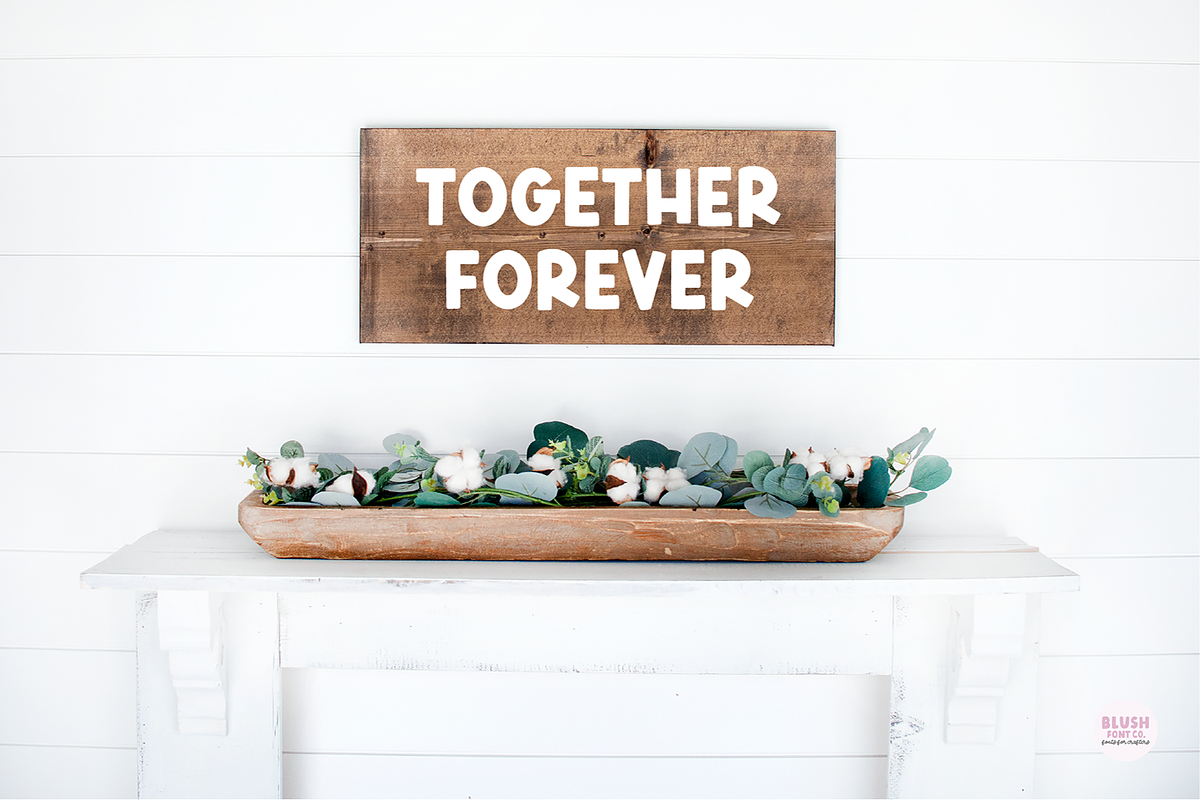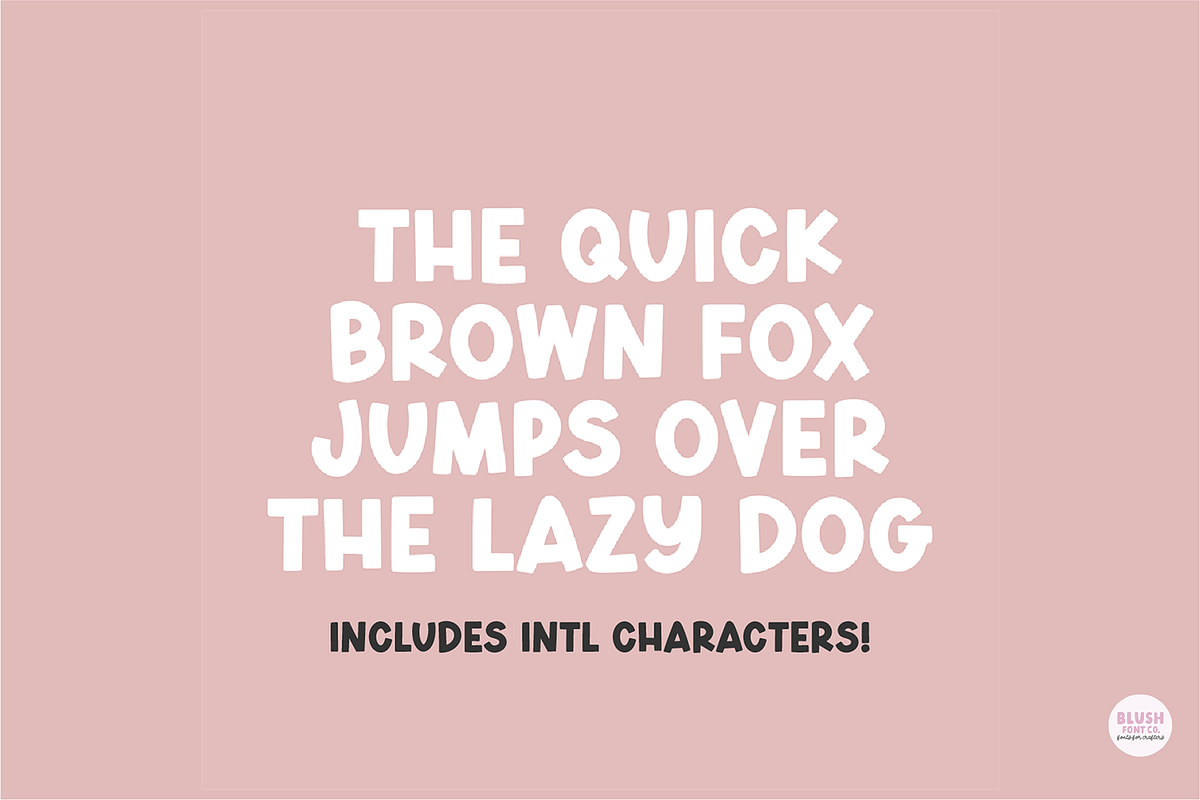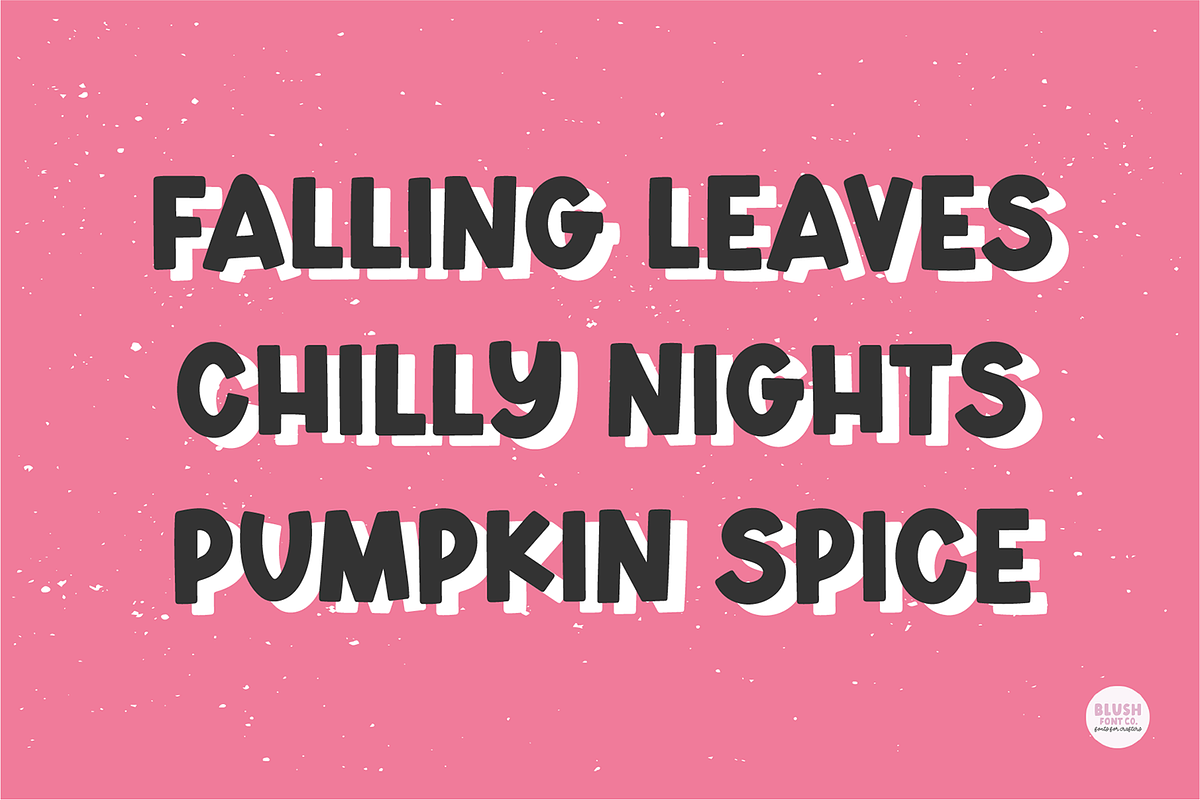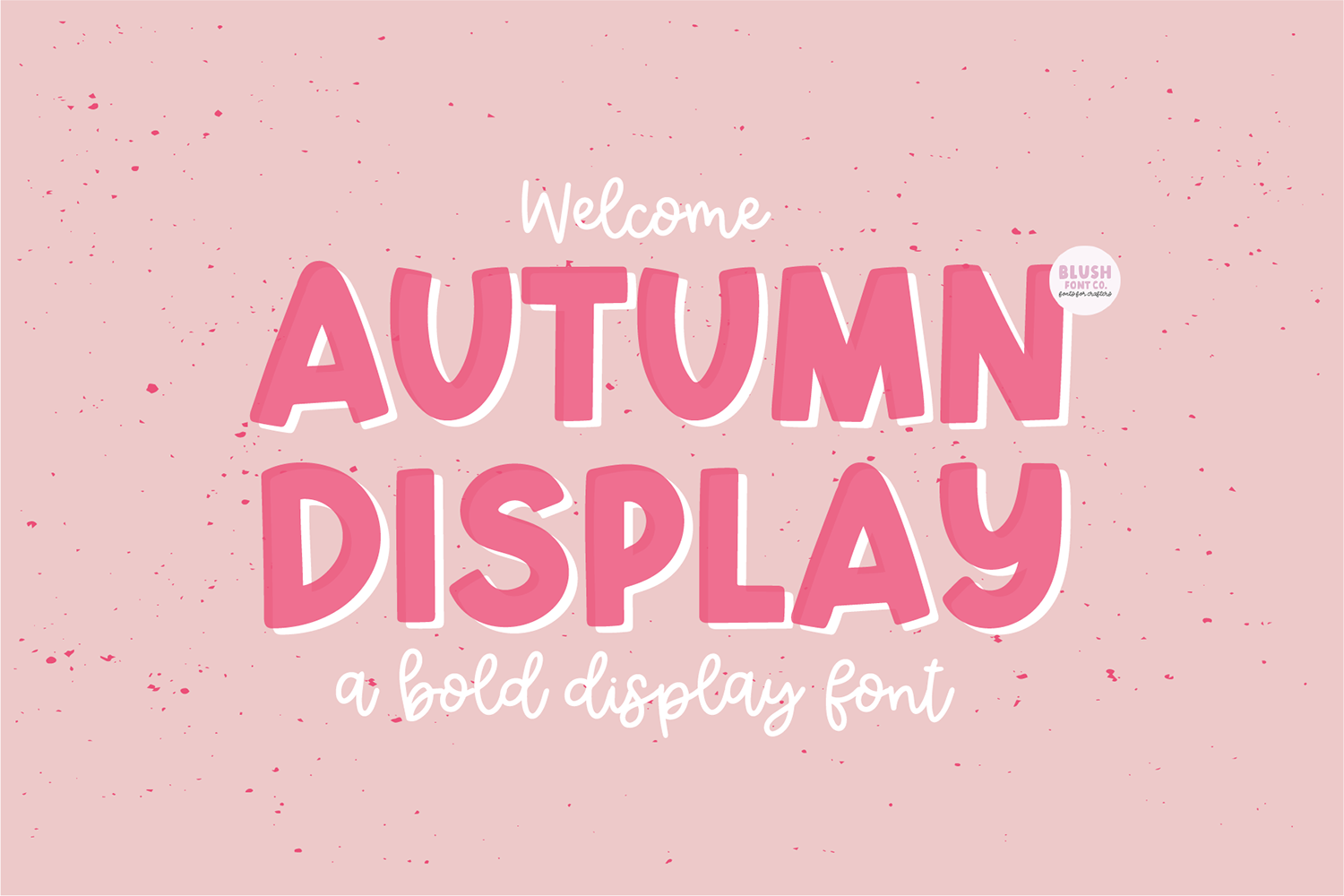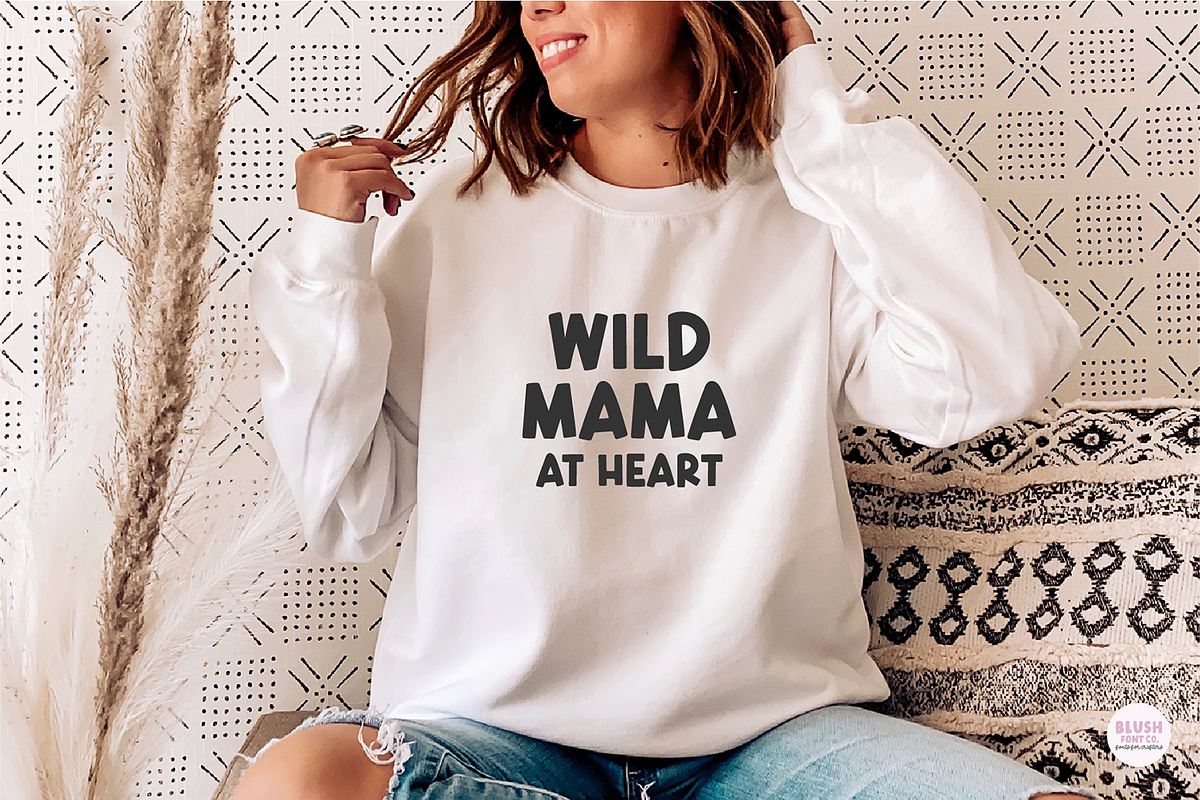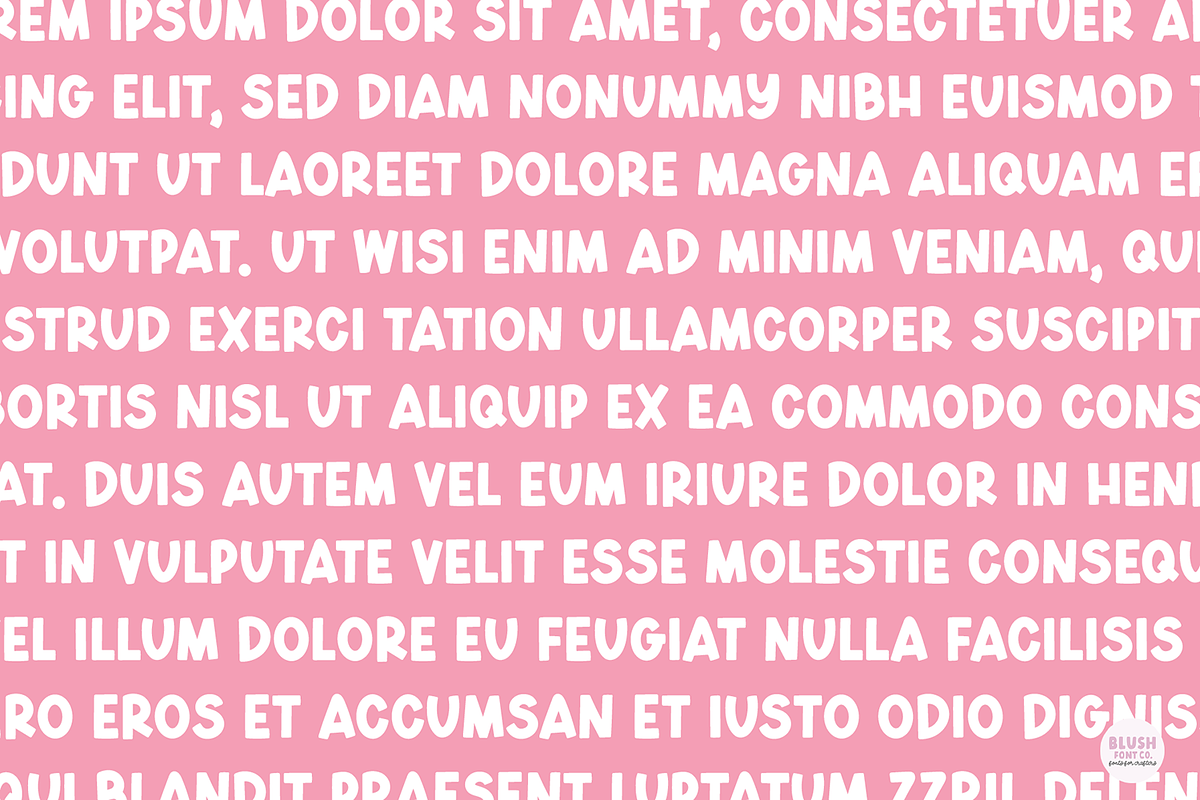
AUTUMN DISPLAY Bold Font
"Autumn Display" Bold display font.
Autumn Display is a simple bold retro font that is perfect for social media or crafty projects. Use it for t-shirts, birthday invitations, and more! This font includes basic punctuation marks and international characters.